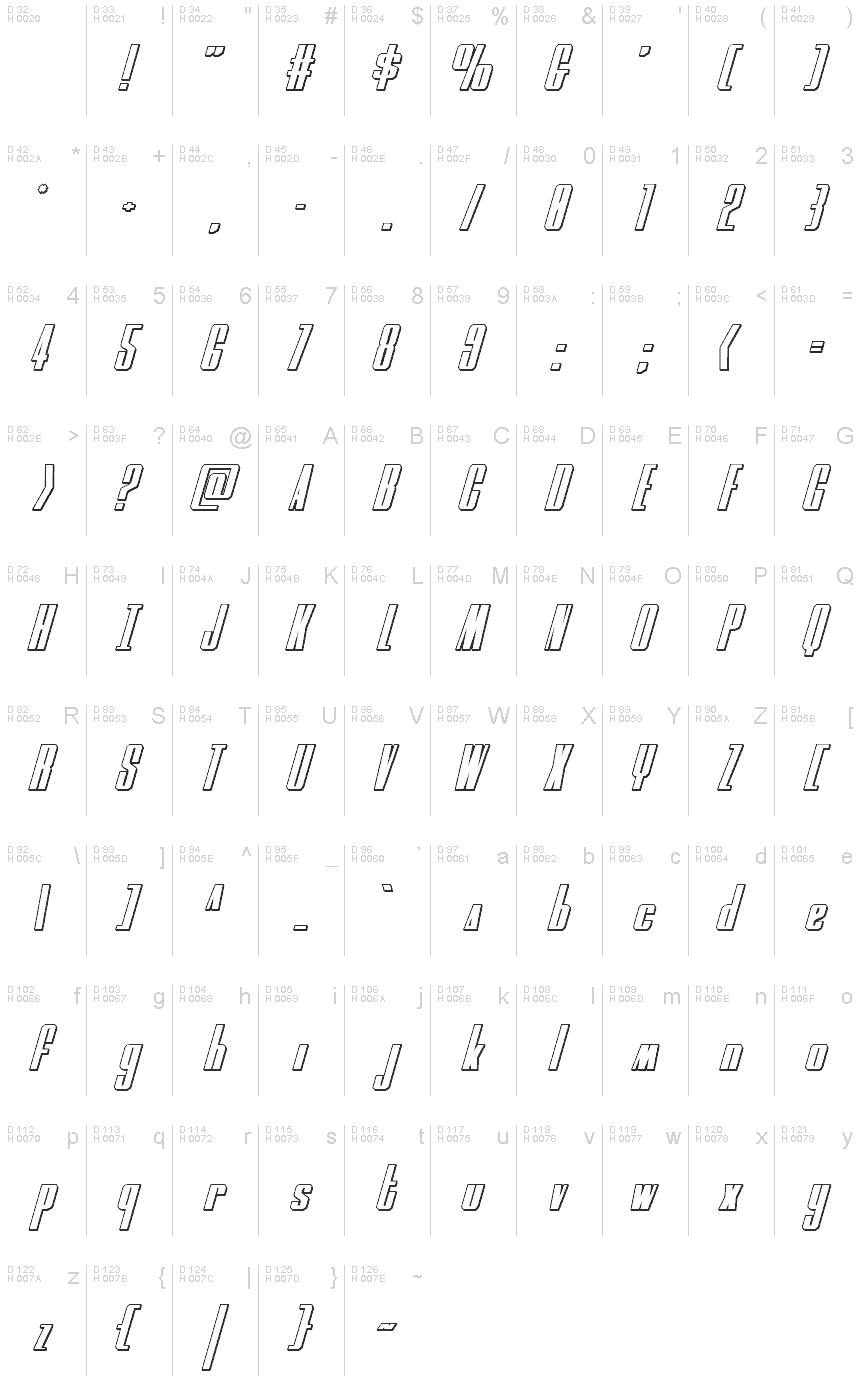
MOON Runner 3D Italic
Moon Runner 3D Italic is a captivating display font that exudes a futuristic, three-dimensional aesthetic. Designed by Daniel Zadorozny of Iconian Fonts, this condensed typeface boasts a striking, angular appearance that immediately commands attention.
The intricate 3D detailing and sleek, italic styling lend the font a bold, visually dynamic quality, making it an ideal choice for a range of attention-grabbing applications, from eye-catching headlines and logos to immersive sci-fi and cyberpunk-inspired designs.
Its unique character is sure to elevate any project that seeks to convey a sense of technological sophistication, cutting-edge innovation, or futuristic vision.